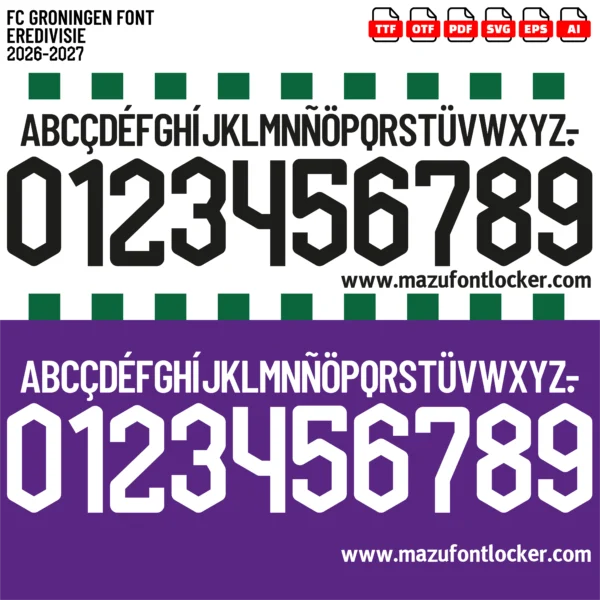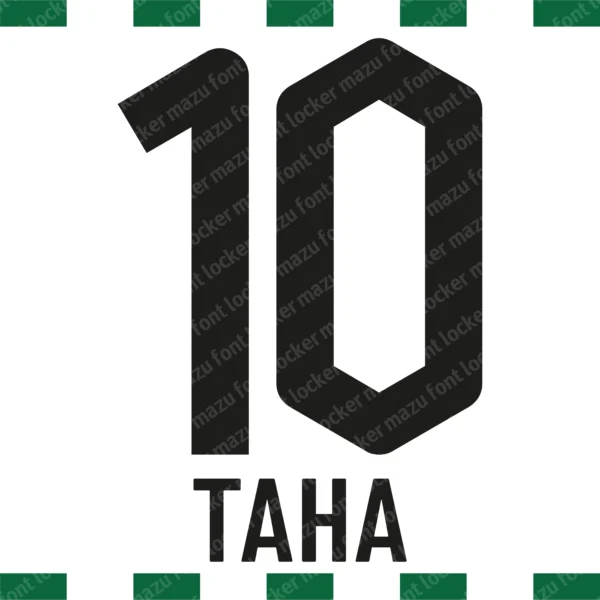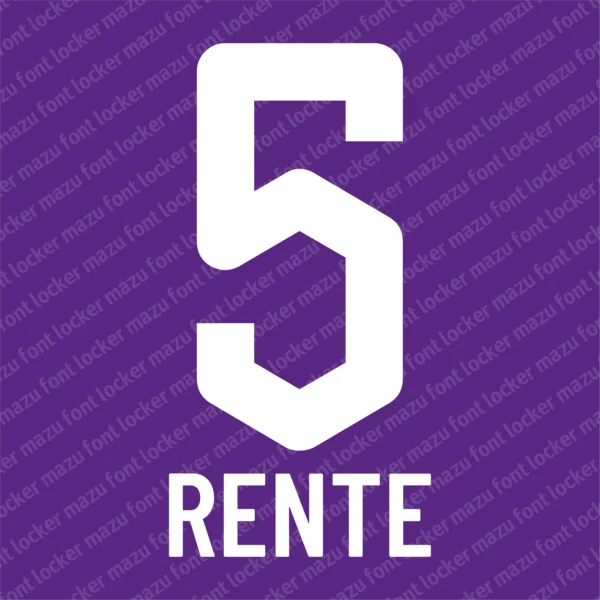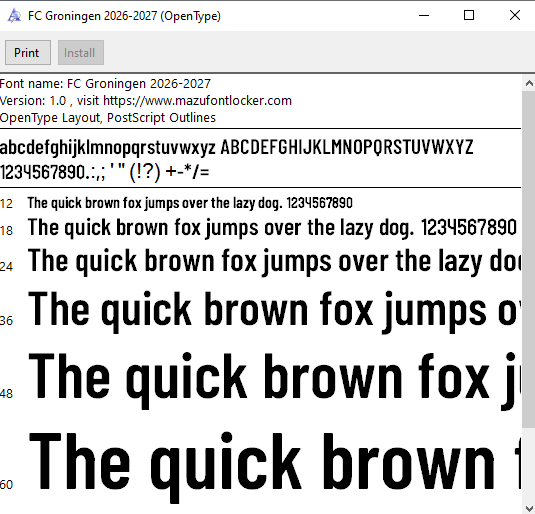
FC Groningen 2026-2027 Font Vector – Stunning Green-White Pride Masterpiece
This font captures the powerful, precision-crafted lettering inspired by FC Groningen’s iconic green-and-white identity, proud northern Dutch heritage, legendary Trots van het Noorden tradition, and fearless football spirit — delivering premium authenticity and explosive match-day energy for professional jersey mockups, football graphics, sports branding, fan designs, and high-end creative projects.
FC Groningen 2026-2027 Font Vector – Stunning Green & White Typeface
The FC Groningen 2026-2027 Font Vector is a premium typeface that accurately recreates the distinctive match lettering associated with FC Groningen during the 2026-2027 football season. This high-quality vector font kit captures the bold, clean, and instantly recognizable typography that perfectly complements the club’s iconic green and white identity.
Designed for professional designers, football enthusiasts, jersey collectors, and passionate FC Groningen supporters, the FC Groningen 2026-2027 Font Vector delivers exceptional authenticity for creating realistic jersey mockups, football merchandise, social media graphics, match posters, squad designs, and custom fan artwork. Every character has been carefully recreated to reflect the powerful and precise visual style of one of the Netherlands’ most historic football clubs.
Why Choose FC Groningen 2026-2027 Font Vector
This font stands out thanks to its precise vector construction and authentic club-inspired styling. Every letter and numeral has been meticulously recreated to match the distinctive football lettering aesthetic associated with FC Groningen during the 2026-2027 season and its domestic campaign.
Whether you’re producing professional football kit templates, custom jersey concepts, or eye-catching football content, the FC Groningen 2026-2027 Font Vector delivers a genuine match-ready appearance inspired by the identity of the Pride of the North.
The lettering featured in the FC Groningen 2026-2027 Font Vector combines clean geometric lines with bold modern proportions. The result is a premium and highly readable typeface that reflects FC Groningen’s proud football heritage, iconic green and white colors, northern Dutch identity, and passionate fanbase.
- Complete uppercase A–Z alphabet and numbers 0–9 in authentic FC Groningen 2026-2027 inspired style
The FC Groningen 2026-2027 Font Vector is inspired by the distinctive football typography and visual identity associated with this campaign, making it an excellent choice for designers creating custom jersey concepts, football posters, squad graphics, matchday artwork, and fan-made projects.